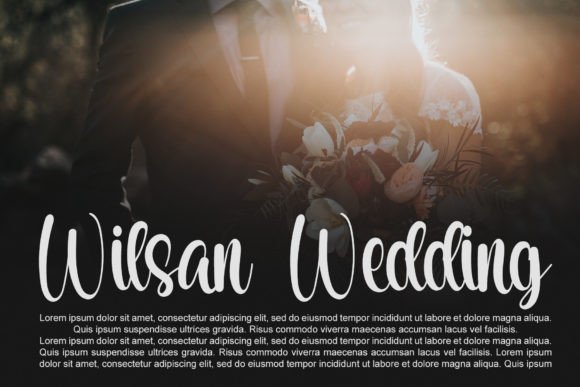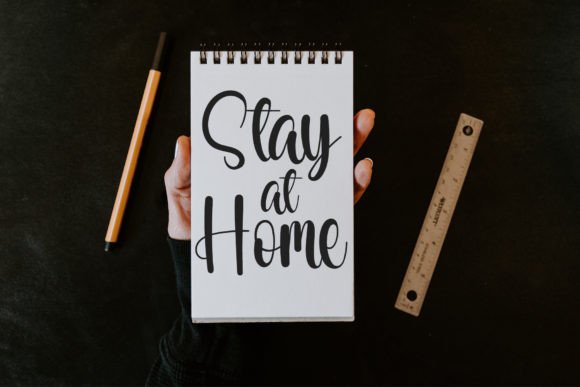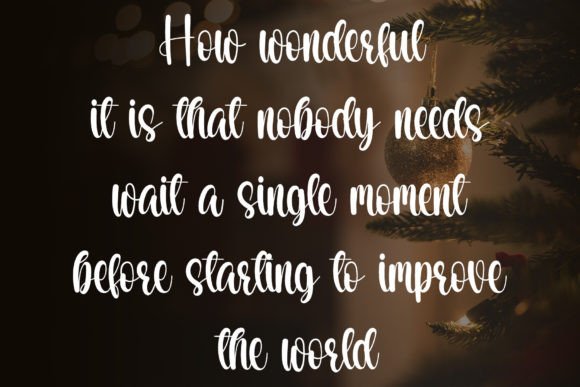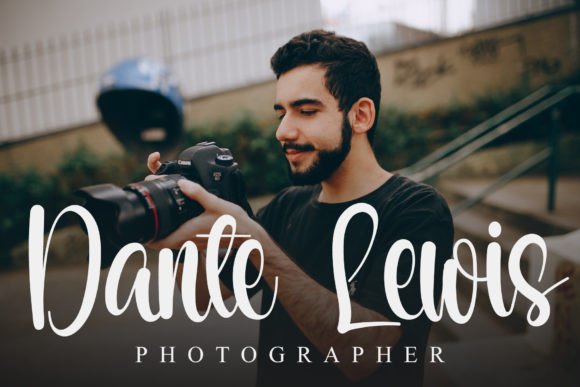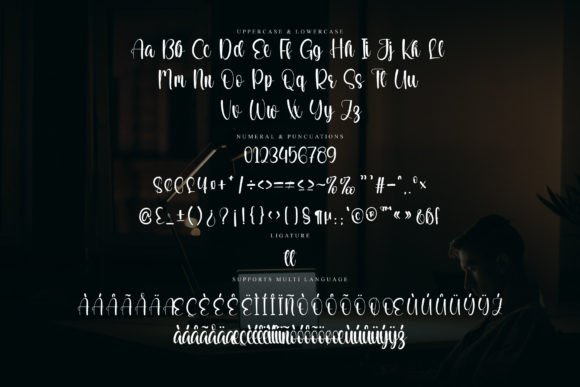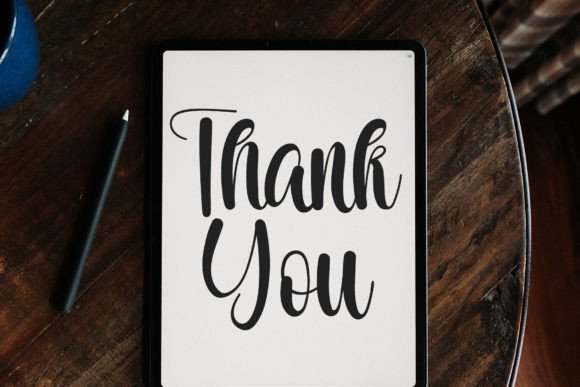
Introducing Birthday Teacher Font: Elevate Your Designs with Elegance
Are you a designer, crafter, or DIY enthusiast looking for a font that adds a touch of sophistication to your projects? Look no further than the Birthday Teacher Font, a beautiful handwritten font designed to bring a sense of elegance to your designs. In this article, we’ll explore the features and benefits of this magical font and how it can transform your creative ideas into stunning works of art.
The Story Behind Birthday Teacher Font
Birthday Teacher Font is a carefully crafted handwritten font that is perfect for anyone seeking to add a personal touch to their designs. Its unique and elegant style makes it an ideal choice for a wide range of projects, from social media graphics and invitations to DIY crafts and calligraphy scripts. The font’s creator aimed to design a font that would be both versatile and visually appealing, making it suitable for various design applications.
Key Features of Birthday Teacher Font
- Handwritten Elegance: Birthday Teacher Font boasts a beautiful, handwritten style that adds a touch of sophistication to any design.
- Magical and Artistic: The font’s unique and artistic design makes it perfect for transforming creative ideas into stunning works of art.
- Versatile: Whether you’re designing for Instagram, creating calligraphy scripts, or working on DIY projects, this font is an excellent choice.
- Elegant and Refined: The font’s elegant and refined style makes it suitable for a wide range of design applications, from formal invitations to social media graphics.
Birthday Teacher Font is an excellent choice for designers and crafters looking to elevate their projects with a touch of elegance. Whether you’re creating:
- Social Media Graphics: Use Birthday Teacher Font to create stunning Instagram posts, Facebook graphics, and Twitter headers that stand out from the crowd.
- DIY Projects: Add a personal touch to your DIY crafts, such as handmade cards, gift tags, and decorations, with this beautiful handwritten font.
- Calligraphy Scripts: Use Birthday Teacher Font to create beautiful calligraphy scripts for special occasions, such as weddings, birthdays, and holidays.
- Invitations and Stationery: Create elegant invitations, greeting cards, and stationery with this versatile and refined font.
Tips for Using Birthday Teacher Font
To get the most out of Birthday Teacher Font, here are some tips to keep in mind:
- Experiment with Font Sizes: Play around with different font sizes to create visual interest and hierarchy in your designs.
- Combine with Other Fonts: Pair Birthday Teacher Font with other fonts to create a unique and eye-catching design.
- Use in Digital and Print Designs: This font is suitable for both digital and print designs, making it a versatile addition to your font library.
- Customize and Edit: Don’t be afraid to customize and edit the font to fit your design needs.